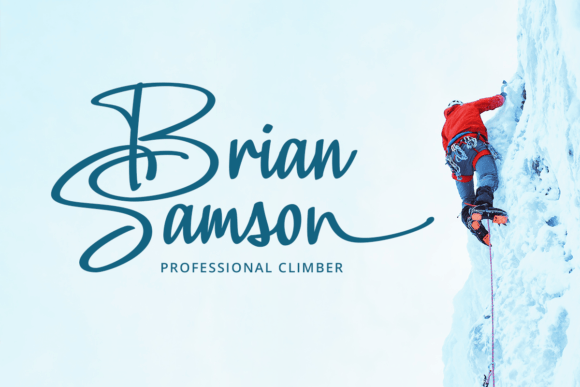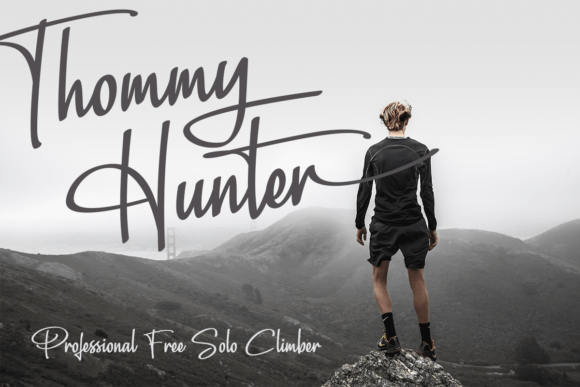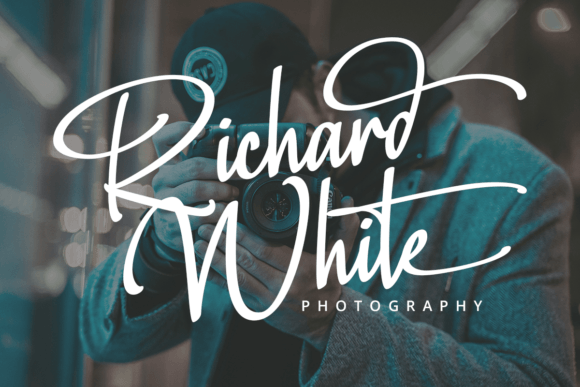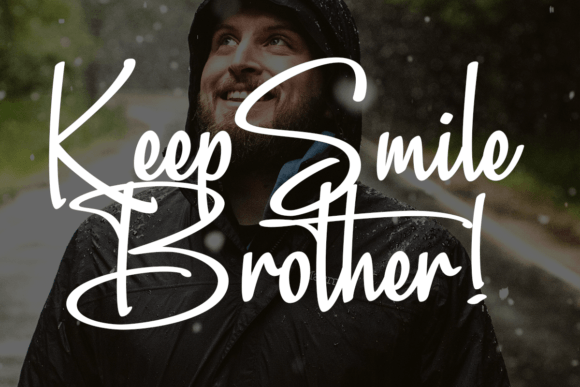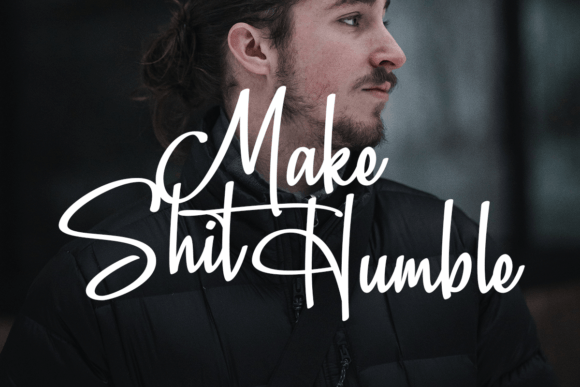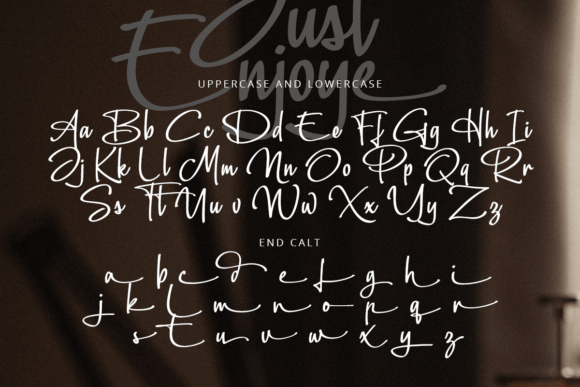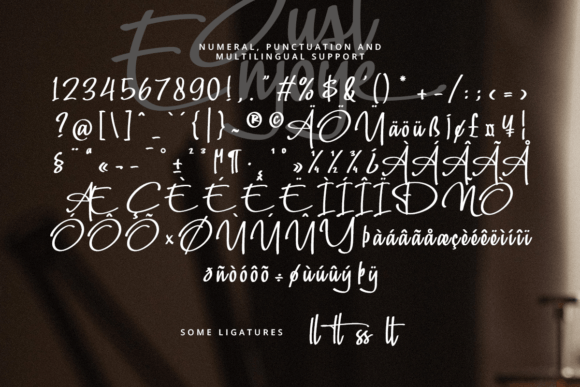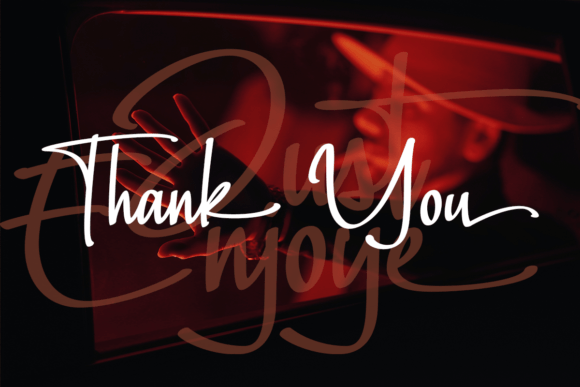
Just Enjoye Font
About Just Enjoye Font
“Just Enjoye” is a stunning handwritten font that exudes the elegance of real calligraphy. Its graceful strokes and natural flow make it an ideal choice for a myriad of creative projects, ranging from invitations and T-shirt designs to lettering, quotes, and greeting cards. This font is a testament to the beauty of handmade artistry, adding a personal and authentic touch to your work.
What sets “Just Enjoye” apart is its inspiration drawn from genuine calligraphy, capturing the essence of handcrafted lettering. Each character is meticulously designed to reflect the nuances of traditional calligraphic styles, making it a versatile option for various design applications. Its effortless charm lends a touch of sophistication to any project, enhancing the visual appeal and making your creations stand out.
One of the key advantages of “Just Enjoye” is its suitability for a wide range of purposes. Whether you are designing elegant wedding invitations, trendy T-shirts, inspirational quotes, or heartfelt greeting cards, this font adapts seamlessly to your creative vision. Its versatility allows you to experiment with different design ideas, ensuring that your projects always look fresh and engaging.
Furthermore, “Just Enjoye” offers an added level of convenience with its PUA (Private Use Area) encoding. This feature grants you access to a delightful array of cute glyphs and swashes, enhancing the decorative possibilities of your designs. With ease of access to these special characters, you can effortlessly embellish your text, adding flourishes and decorative elements that elevate your work to new heights.
The font’s PUA encoding also means that you have the freedom to customize your designs with unique and creative touches. Whether you want to add playful swirls, ornate embellishments, or intricate details, “Just Enjoye” provides you with the tools to bring your artistic vision to life. This flexibility empowers you to create visually captivating compositions that captivate your audience and leave a lasting impression.
“Just Enjoye” is more than just a font; it’s a creative companion that allows you to infuse your projects with a sense of authenticity and individuality. Its natural and personal aesthetic adds a human touch to your writing and design, making your work feel warm and inviting. By incorporating this font into your creative endeavors, you can effortlessly achieve a genuine and heartfelt look, establishing a connection with your audience on a deeper level.
In summary, “Just Enjoye” is a versatile and elegant handwritten font that combines the beauty of calligraphy with modern convenience. Its PUA encoding ensures easy access to a wealth of decorative elements, enabling you to enhance your designs with charming glyphs and swashes. Whether you’re a professional designer or someone passionate about creative expression, “Just Enjoye” empowers you to craft visually appealing and personalized creations that leave a lasting impact. So, dive into the world of “Just Enjoye” and let your imagination run wild as you bring your artistic visions to life with style and grace.